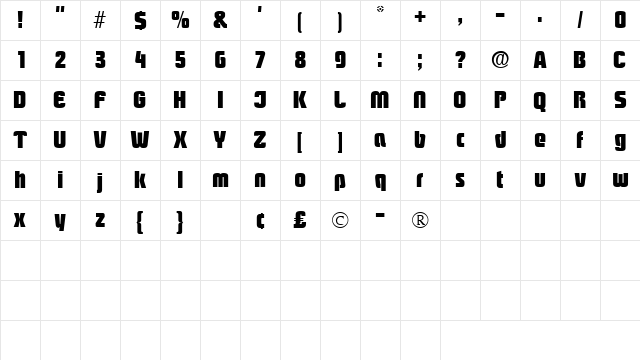
BoozleSSK Regular Free Font
BoozleSSK Regular
BoozleSSK Family
Design Context for BoozleSSK
BoozleSSK is a composed and adaptable typeface that performs quietly and consistently across a wide range of design contexts.